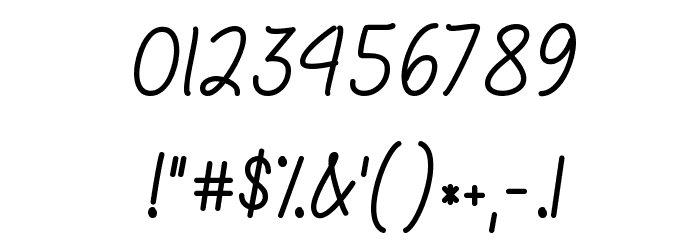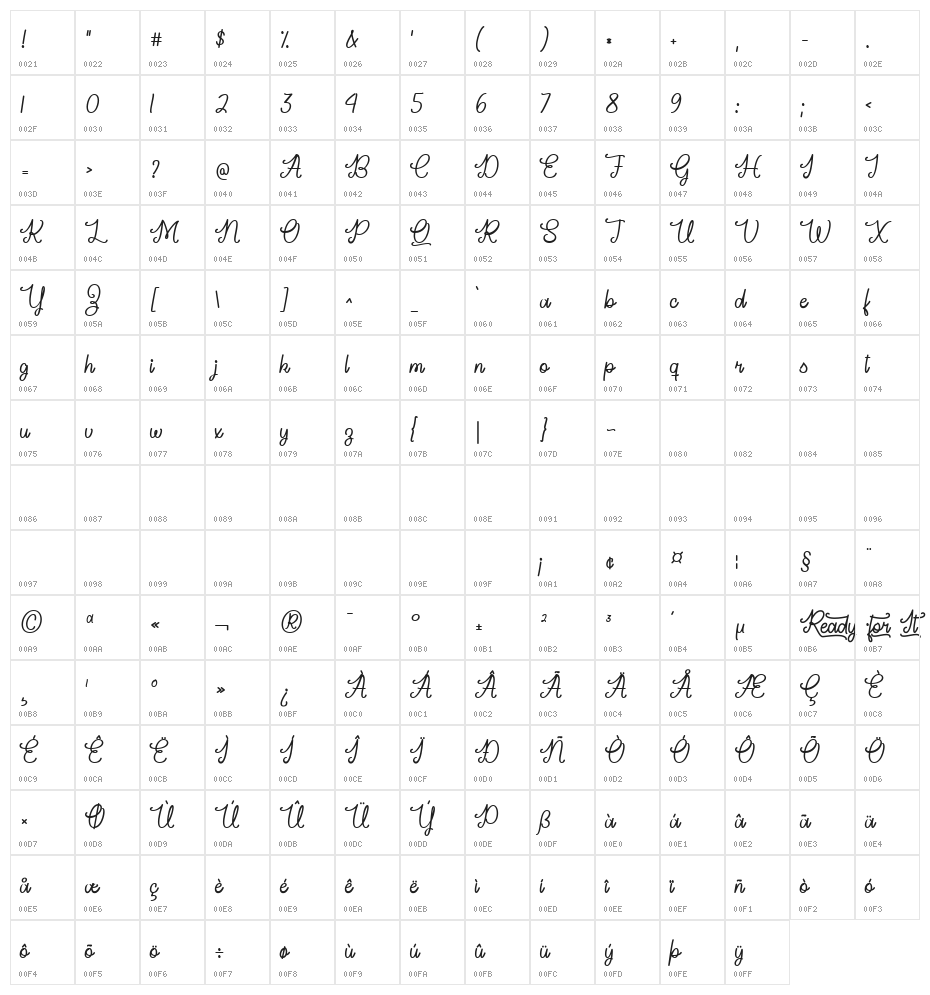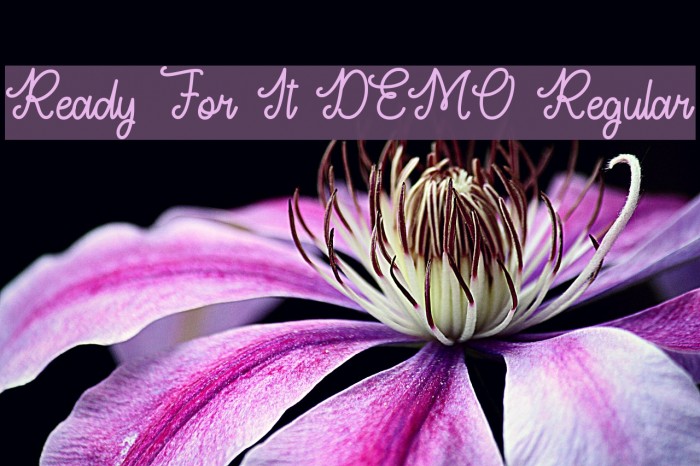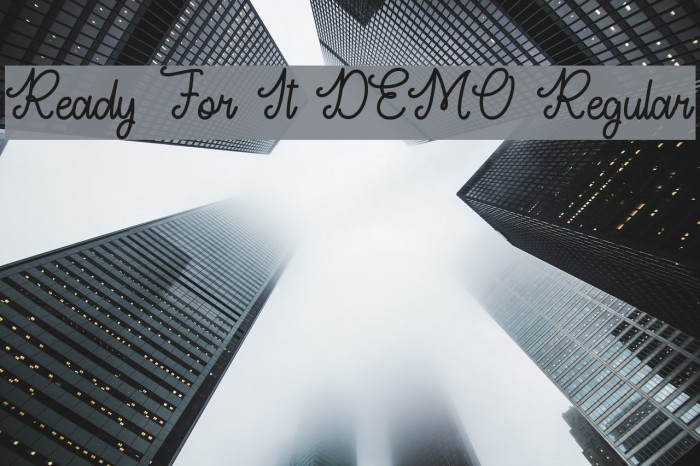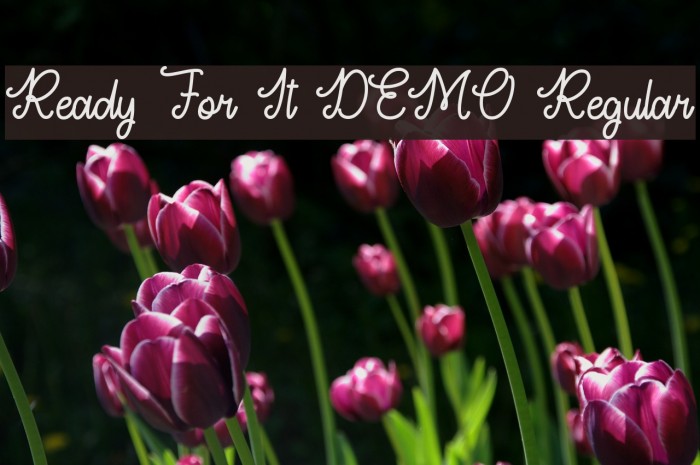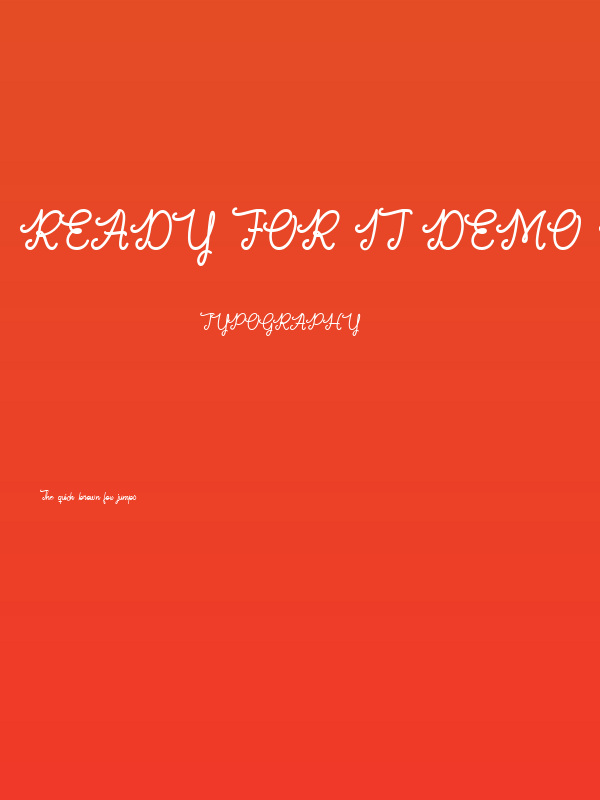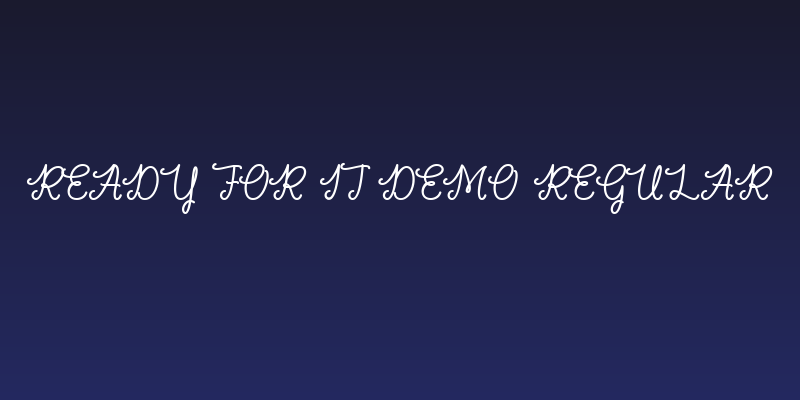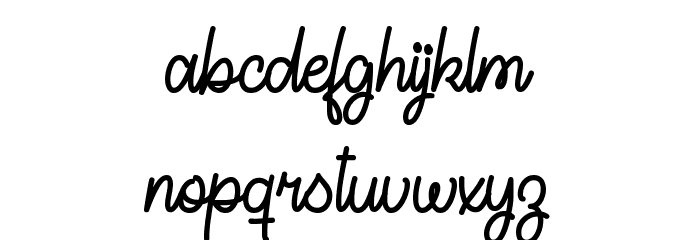
Ready For It DEMO Regular Font
Ready For It DEMO Regular Description
This font features a playful and elegant script style with a handwritten appearance. The characters are smoothly connected, giving it a fluid and dynamic look. The uppercase letters are slightly more ornate, with subtle flourishes that add a touch of sophistication. The lowercase letters maintain a consistent flow, enhancing readability while retaining a casual charm. The numerals are clear and well-proportioned, matching the overall aesthetic. Special characters are thoughtfully designed to blend seamlessly with the rest of the font, making it versatile for various uses.
| Proposed Projects | Ideal for wedding invitations, greeting cards, personal branding, and creative projects that require a touch of elegance and personality. |